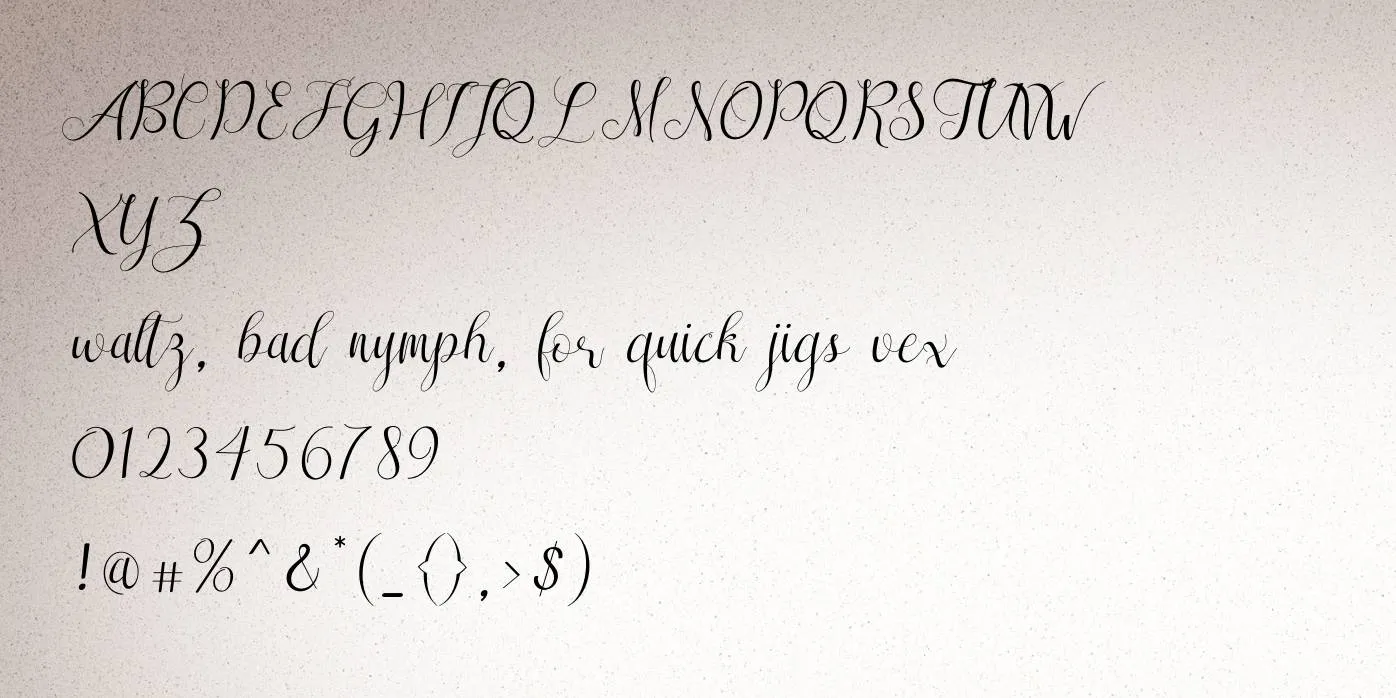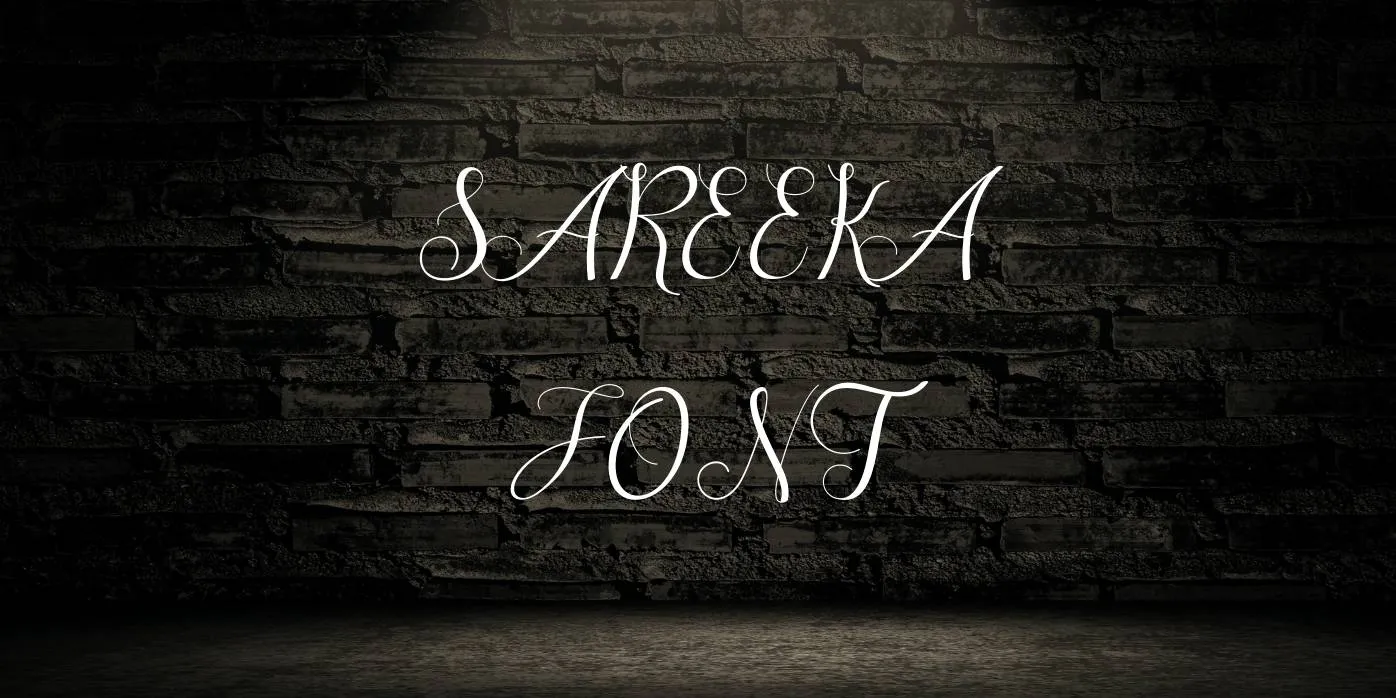
Sareeka Font
Sareeka font is a beautiful hand-drawn style typeface with a great adorable look. The font family belongs to a Script typeface family and the designer of this typeface is “aqr typeface”. It is free for personal use and has OTF and TTF features. The font has beautiful characters with washes and a lightweight texture.
that seems like someone made with pure handwriting. It can support many abroad languages such as Yapese, Zulu, Rotokas, Russian, Rusyn, Sami (Inari), Sami (Lule), Chuvash, Interglossa. You probably don’t know about the¬†Allura Font that seems mostly like this typeface and you can get it easily from our website. Sareeka font has beautiful Uppercase and Lowercase letters, Numbers and Numerals, prevalent punctuation, special glyphs, and useful alternatives also.